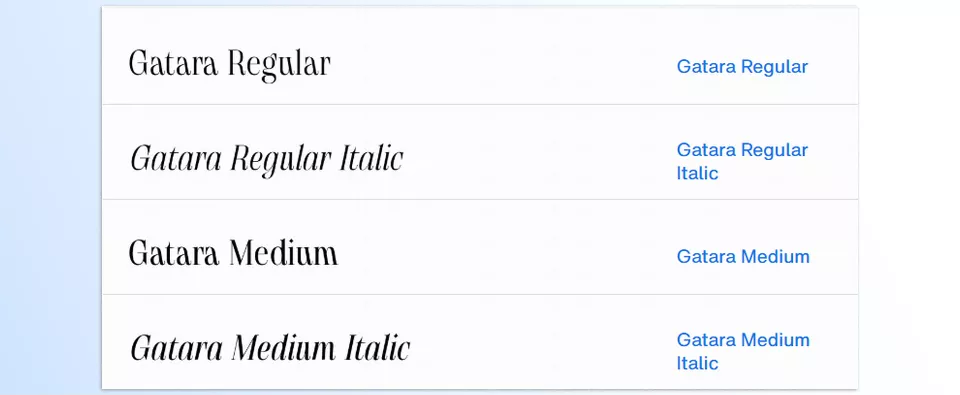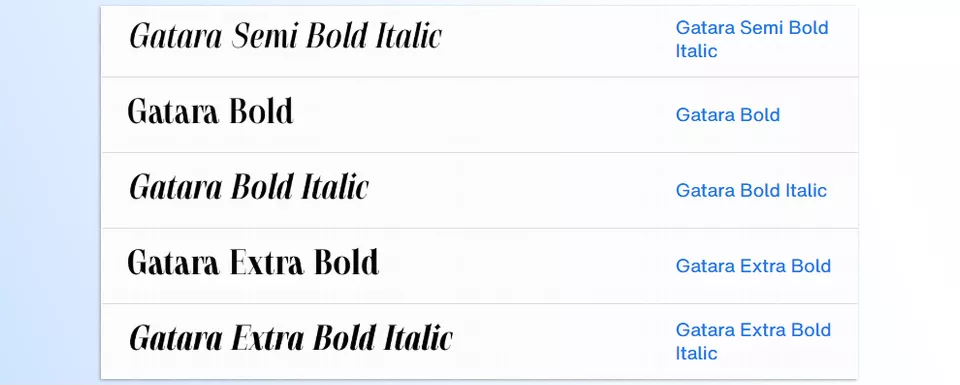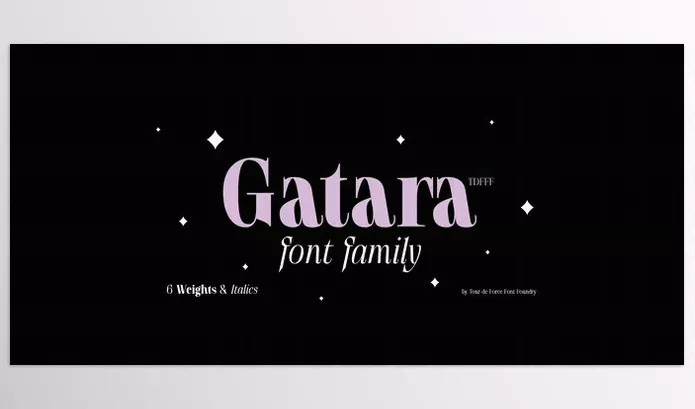
Gatara Font Family is an elegant serif font inspired by Didone styling and comes with a total of six weights, each with a corresponding italic style. Its contrast, along with its high uniqueness in specific letterforms, makes it highly suitable for editorial work and even branding, web design, and more.
Tour De Force – Gatara Font Family Features
• Available in six weights with matching italics for design flexibility.
• His highly distinct serif typeface is set apart with high contrast “h,” “n,” “m,” “a,” and other letters.
• Particular highlights and innovations “f” and “k” have bestowed character to your writing.
• Provides essential typographic elements like standard ligatures and fractions.
• Extensive Latin character set allows for multiple languages.
• Editorials, branding, web fonts, titles, and more have great synergy with it.
Image 1: Elegance redefined—where bold contrast meets timeless sophistication.
Gatara Font Family - Elegance redefined—where bold contrast meets timeless sophistication.
Image 2: Crafted for headlines, perfected for storytelling.
Gatara Font Family - Crafted for headlines, perfected for storytelling.